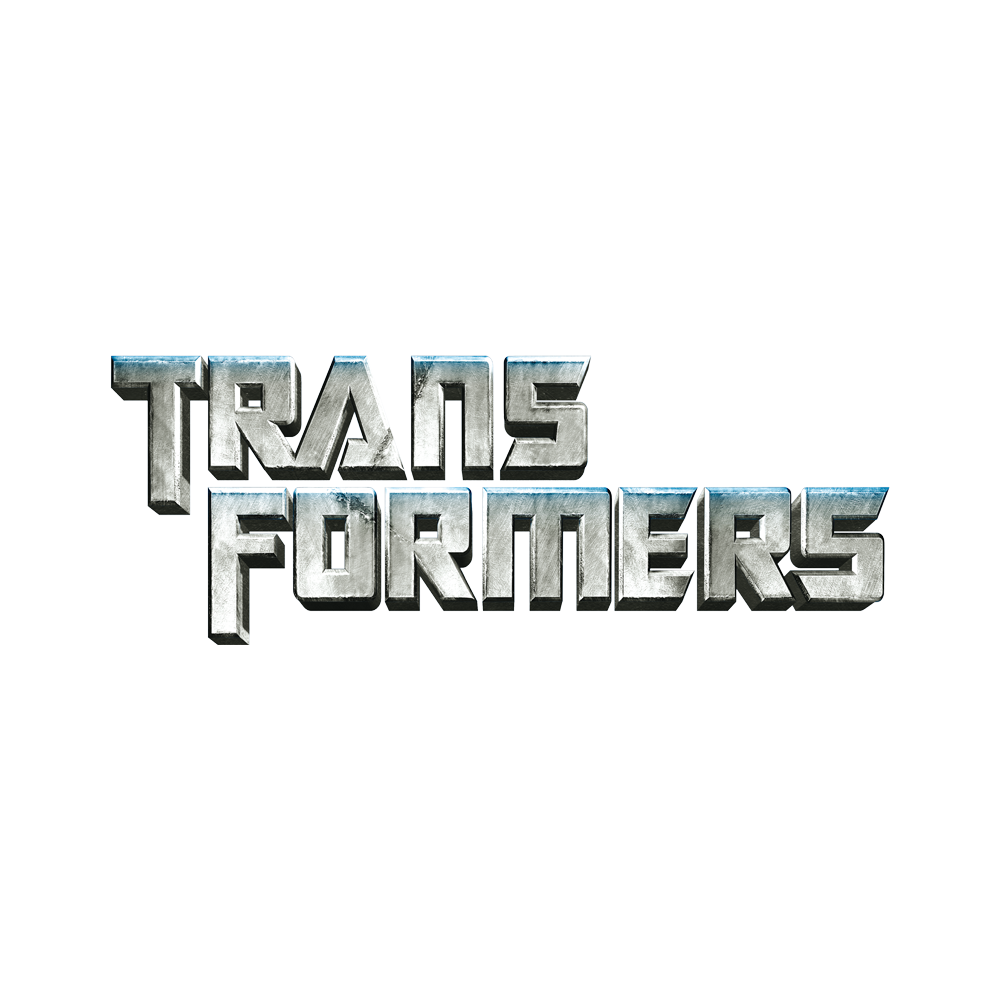
Transformers Font
ComicsTransformers is a series about robotic aliens that can transform into vehicles, focusing on the battle between the heroic Autobots and villainous Decepticons. The franchise includes toys, cartoons, comics, and films.
The transformers logo was custom made but has been replicated as Transformers Movie font by Alphabet & Type. The font is free for personal use.